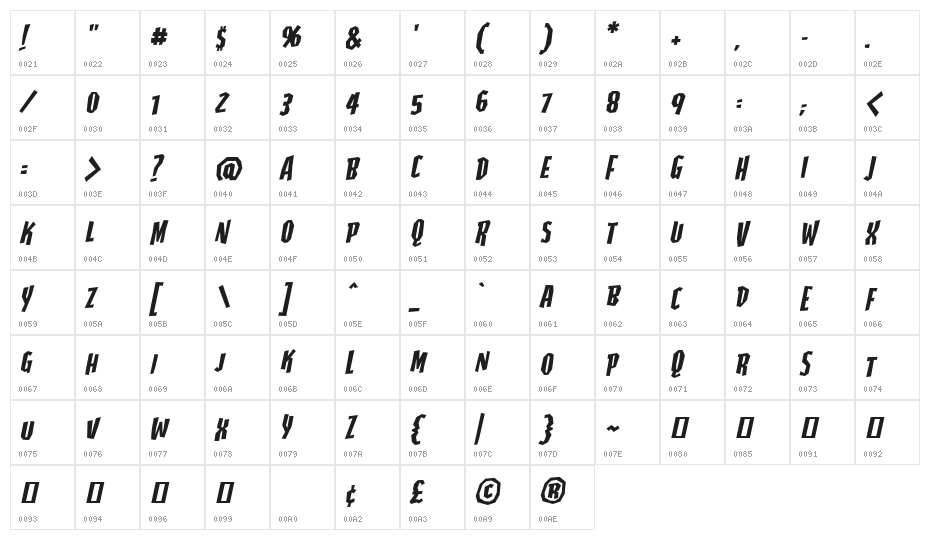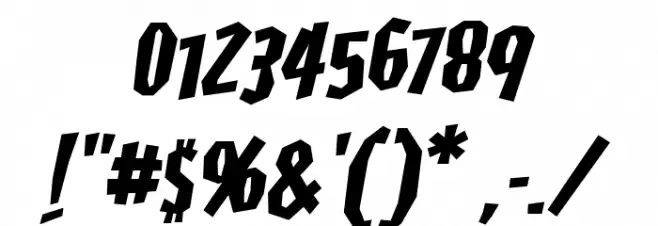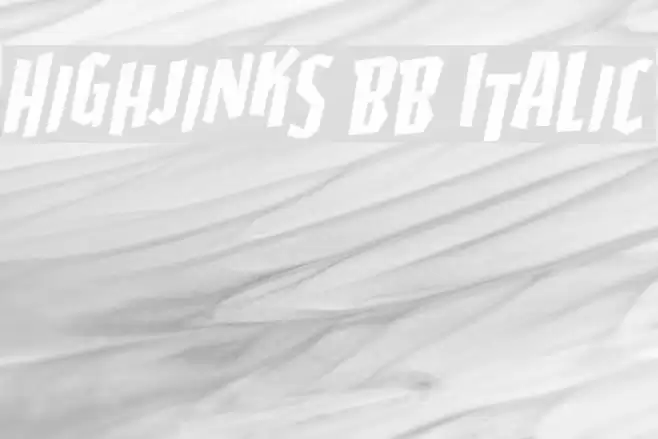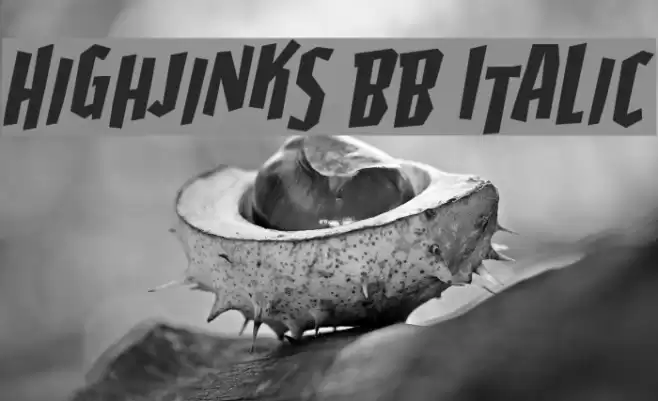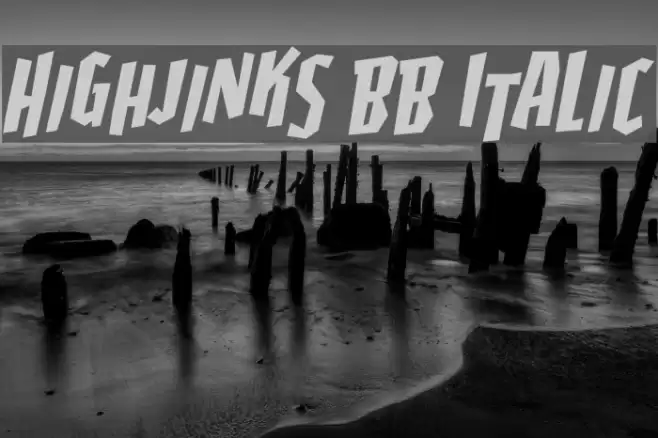
Highjinks BB Italic Font
Highjinks BB Italic Description
This font features a bold and dynamic style with a distinct italic slant, giving it a sense of motion and energy. The characters are sharply angled, with a slightly condensed form that enhances its striking appearance. The uppercase and lowercase letters maintain a consistent design, while the numerals and special characters complement the overall aesthetic. The font's edgy and playful nature makes it ideal for projects that require a bold statement or a touch of whimsy.
| Width | Condensed |
| Overall Style | Modern, Decorative |
| Proposed Projects | Suitable for posters, logos, comic book titles, and any design that requires a bold, playful touch. |